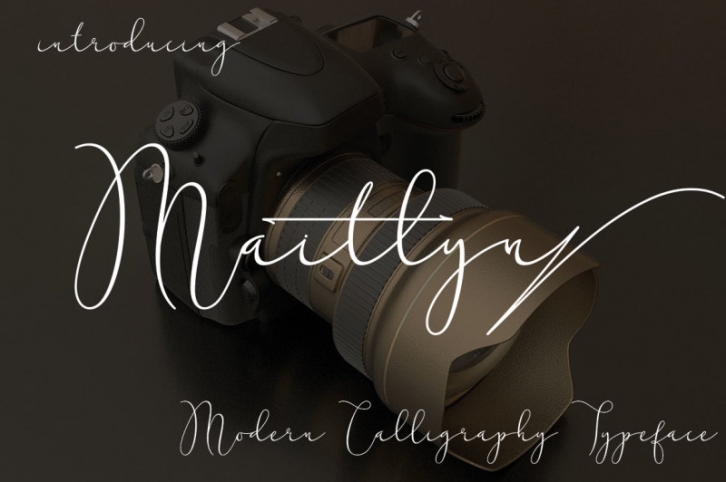
Introducing!!!
Maitlyn is another lovely modern calligraphy typefaces, which is combining the style of classic calligraphy with an modern style. combines from copperplate to contemporary typeface with a dancing baseline, modern and elegant touch.
The Features of this fonts is;
• Standart ligatures
• Discretionary ligatures
• Swash Alternates
• Stylistic Alternates
• Stylistic sets
• PUA Unicode (Private Use Areas)
Languages supported: Breton, Catalan, Czech, Danish, Estonian,French, German, Hungarian, Icelandic, Italian, Romanian, Scottish Gaelic, Slovak, Latvian, Lithuanian, Norwegian, English, Finnish, Polish, Portuguese, Slovenian, Spanish, Swedish, Turkish, Welsh. Basically, all european languages that are based on latin alphabet